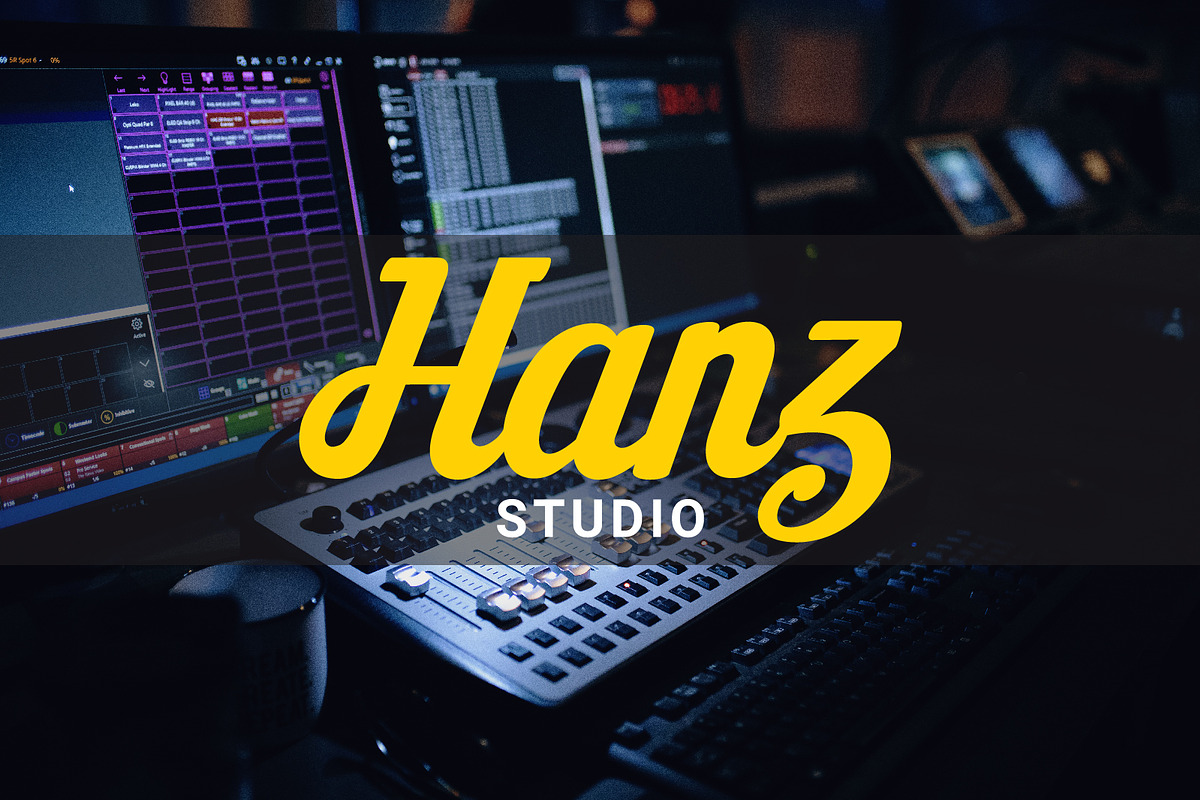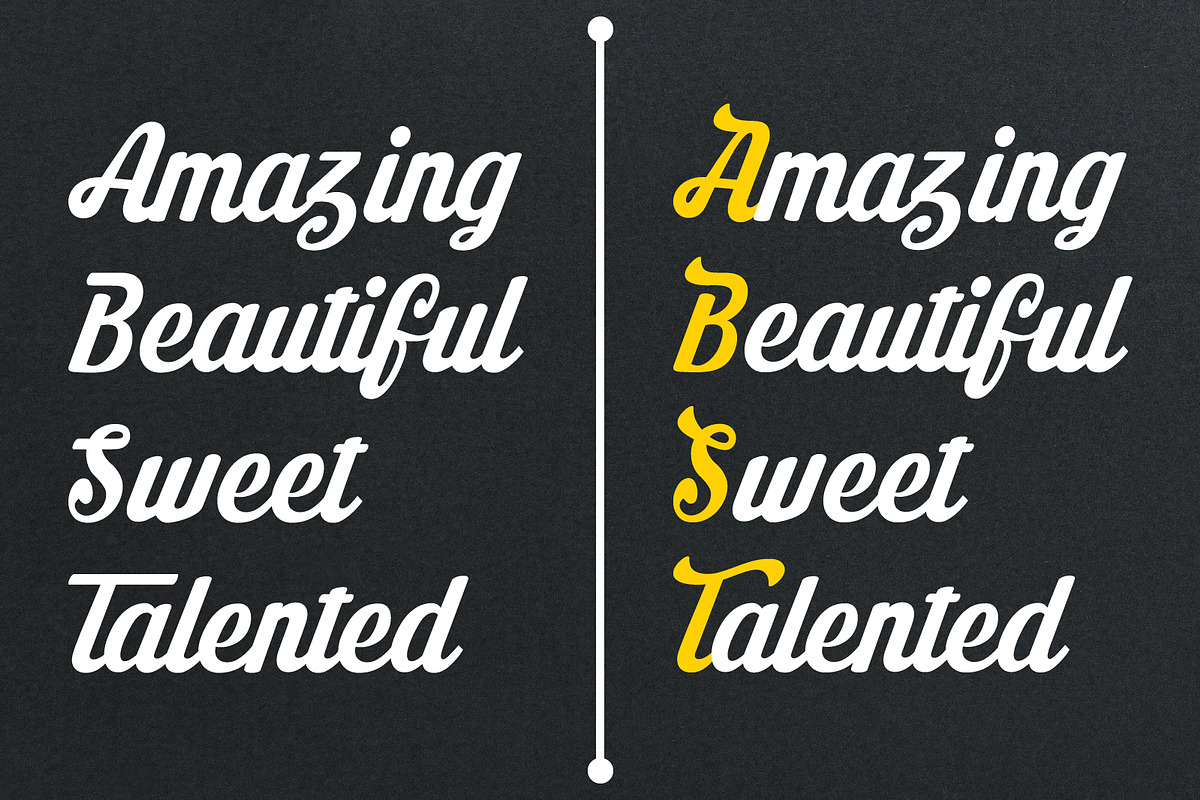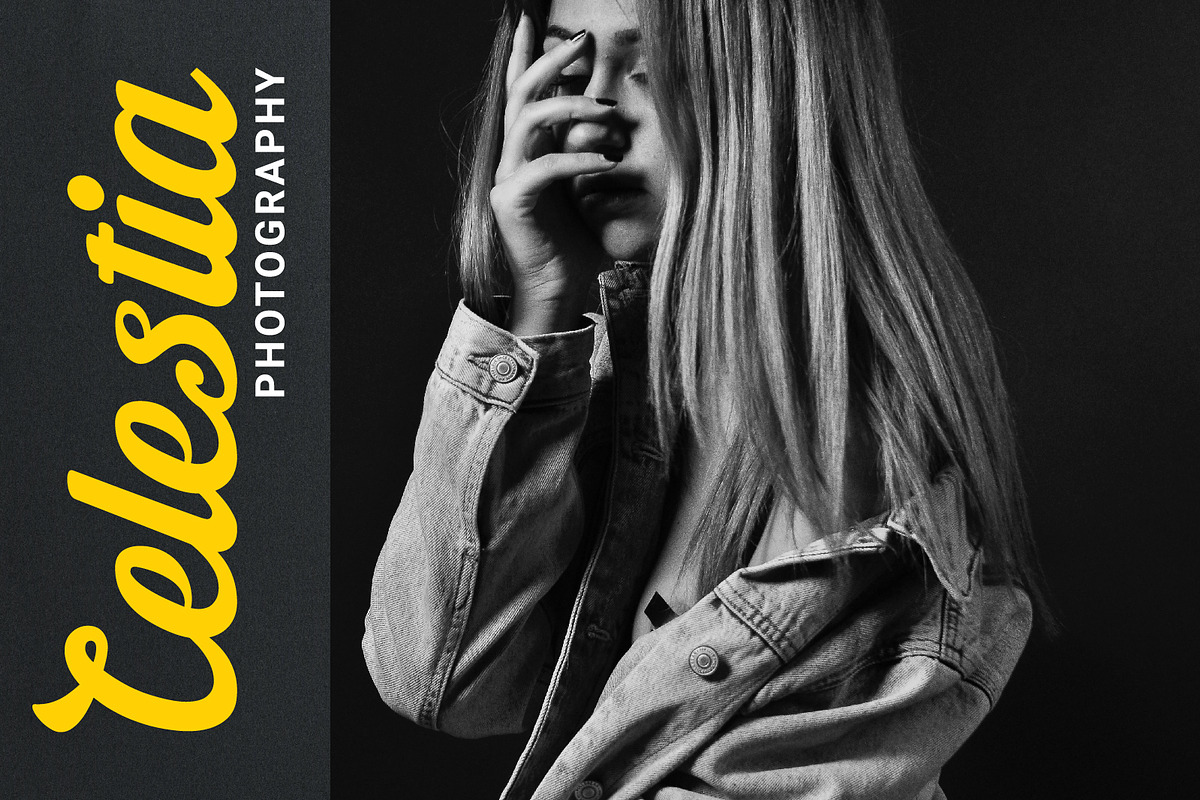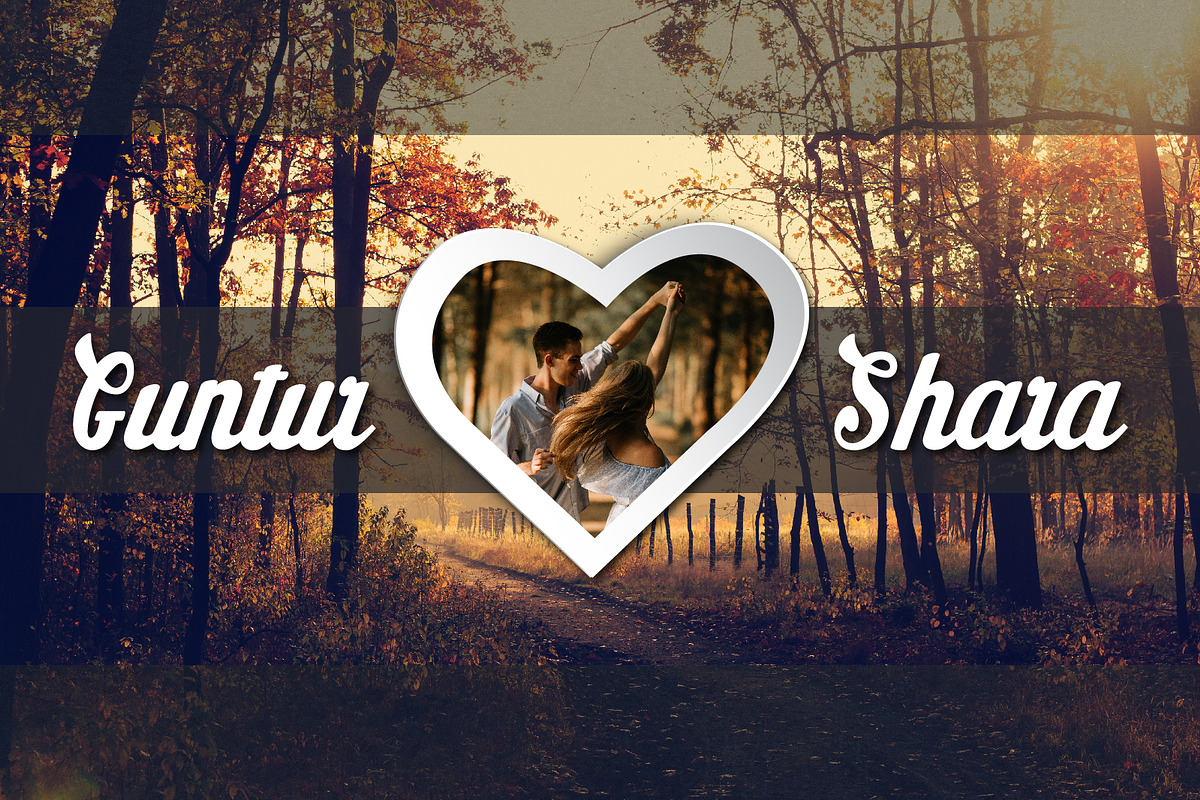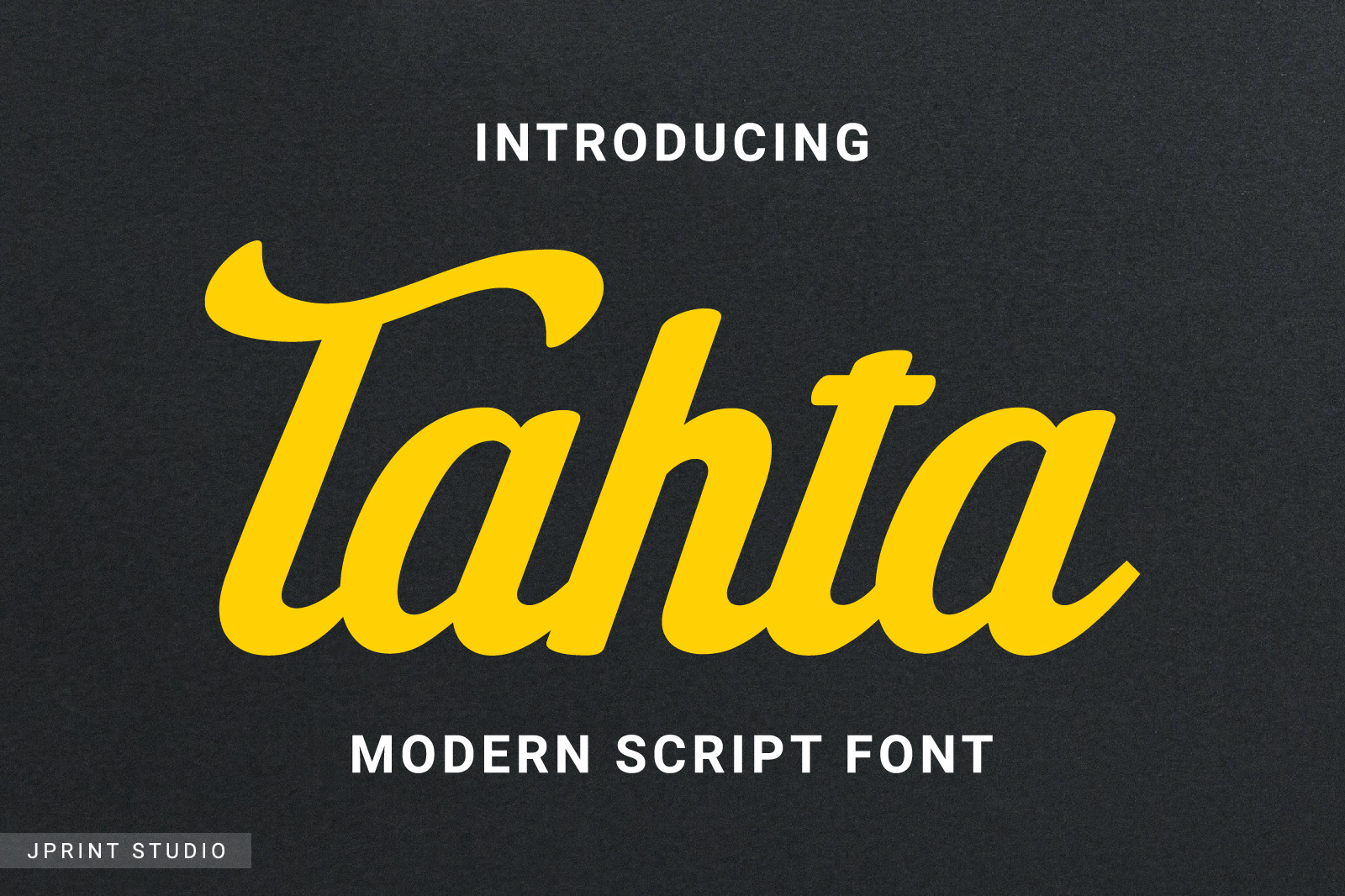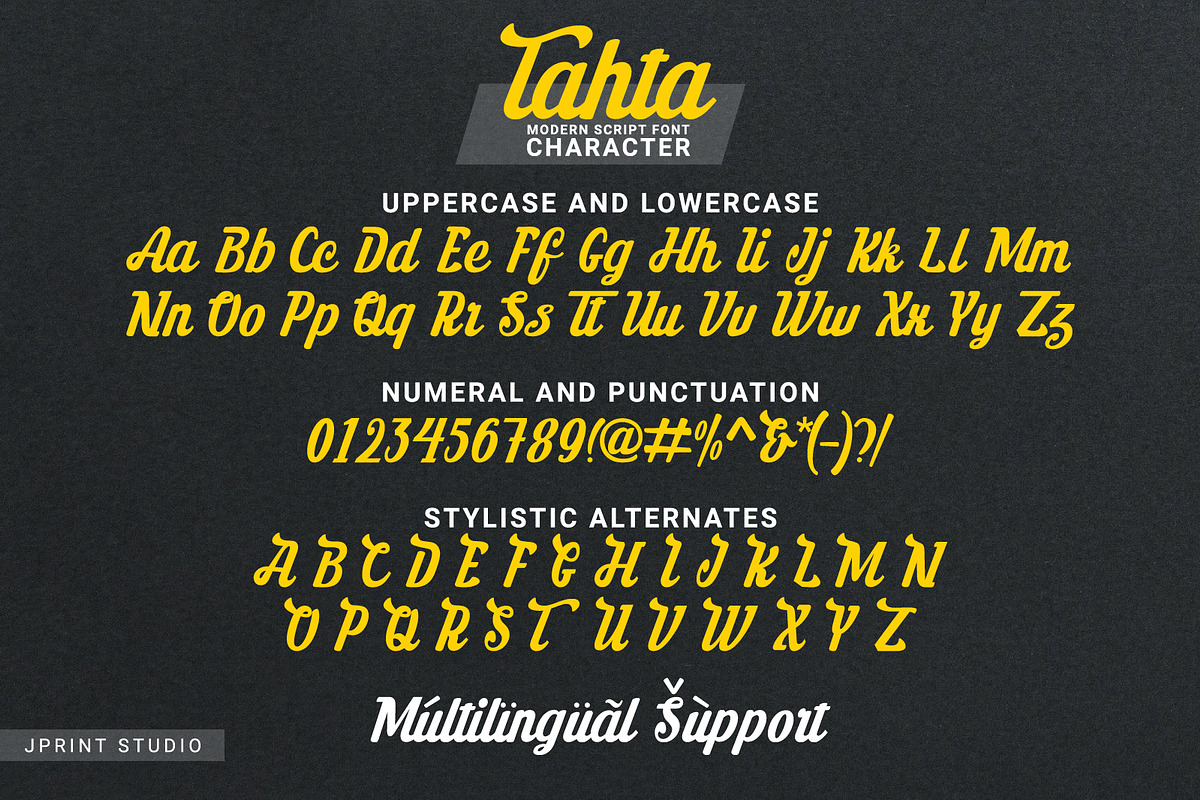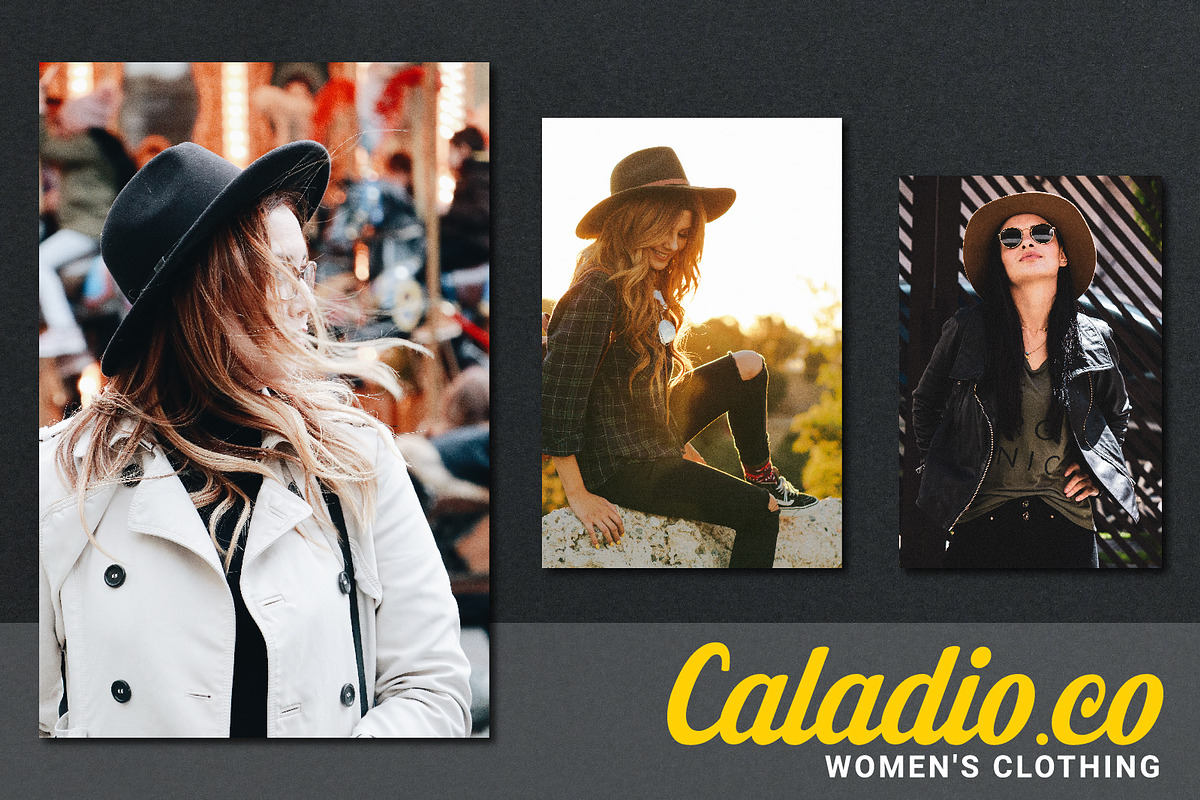
Tahta | Modern Sricp Font
Tahta is a cursive, bold and vintage styled paint brushed handwritten font. This font reads as strong, confident, and dynamic and can add tons of nostalgic character to your designs.